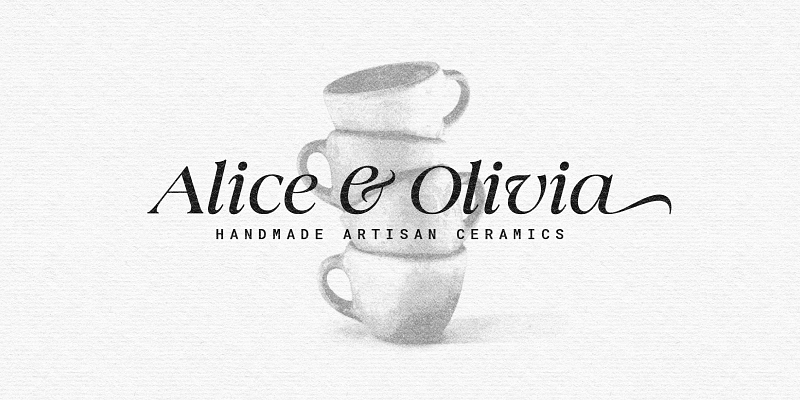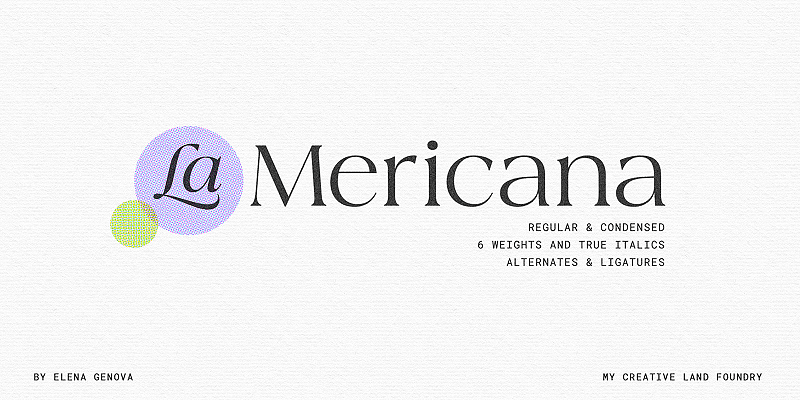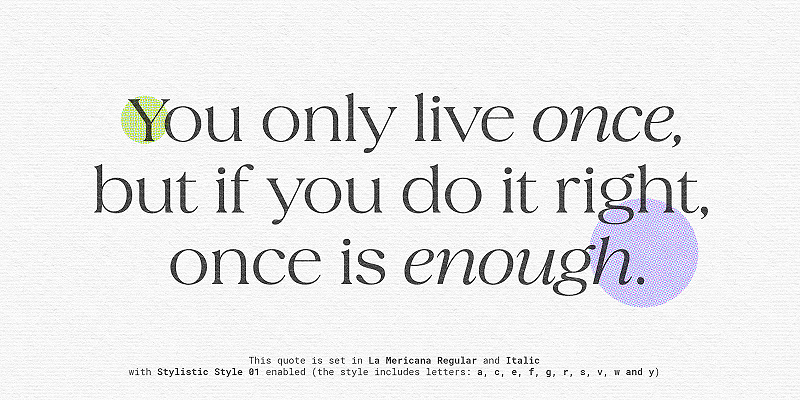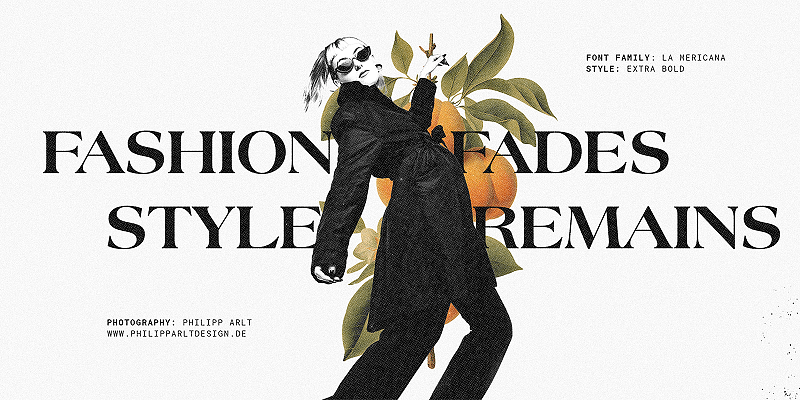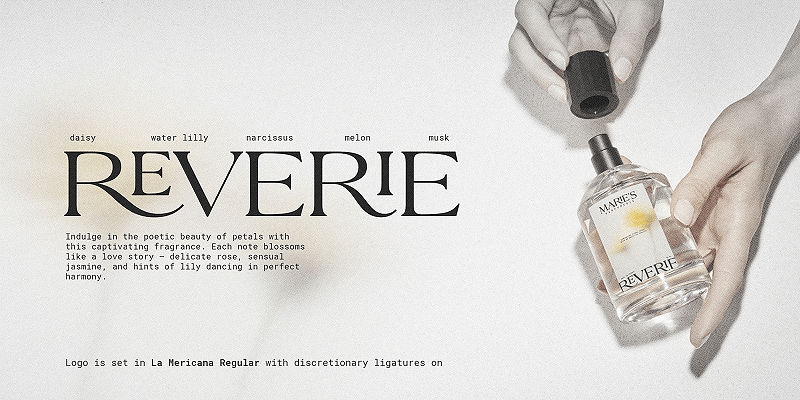
La Mericana is a serif font family designed by Elena Genova. Inspired by Richard Isbell’s Americana (1965), it builds on its wedge serifs and generous x-height—reimagined for contemporary use. Its nostalgic personality evokes classic signage and retro branding, while new ligatures, alternates, and a true italic with calligraphic details add flexibility and elegance without losing the family’s confident, approachable tone. The condensed version preserves the original’s distinctive look while keeping typographic impact strong in tight spaces. La Mericana brings heritage into modernity with warmth and character.